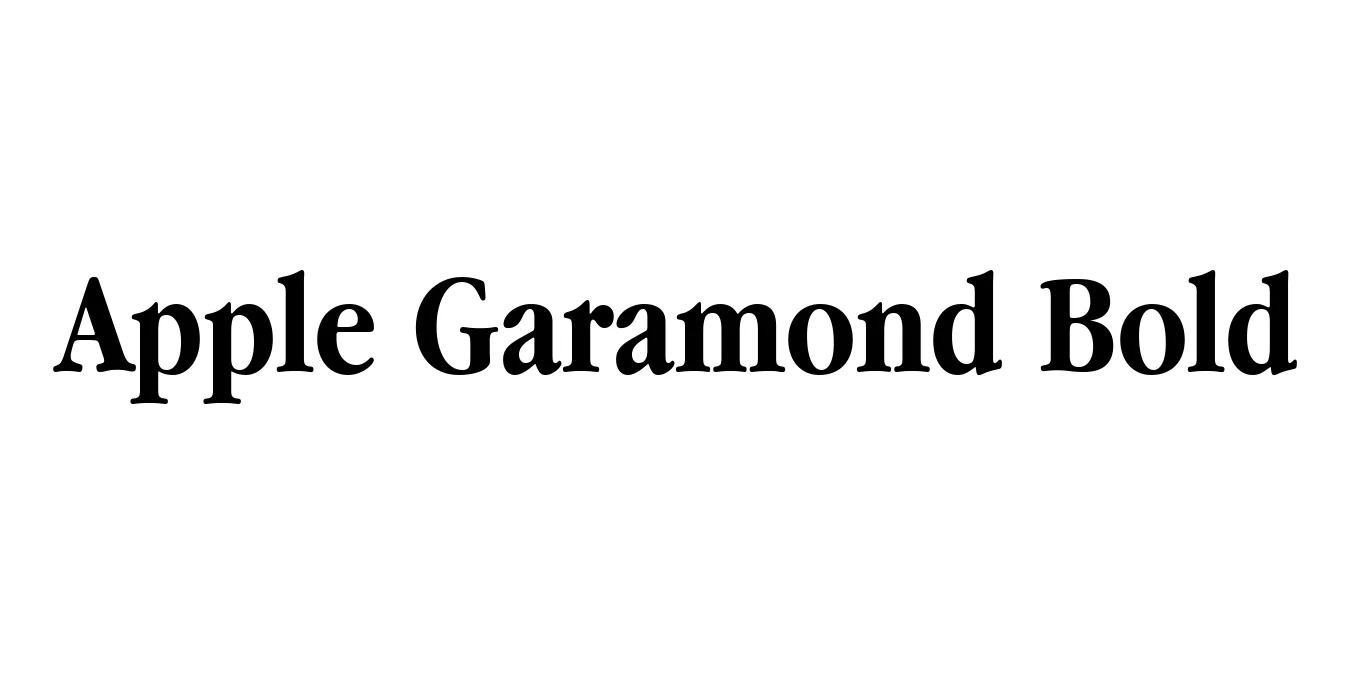
Apple Garamond Bold
Designed by ITC (International Typeface Corporation)
Apple Garamond Bold is a condensed variation of ITC Garamond that served as the primary corporate typeface for Apple Inc. from 1984 until 2002. This specific cut was commissioned to provide a more space-efficient version of the classic Garamond style, allowing Apple to maintain a sophisticated and humanistic brand image across diverse marketing materials. It is most famously associated with the Macintosh launch and the iconic 'Think Different' advertising campaign.
Characterized by its exceptionally high x-height and elegant, sharp serifs, the Bold weight provides a strong visual hierarchy while retaining the classic proportions of the Garamond family. While Apple eventually shifted its branding to Myriad and later San Francisco, Apple Garamond Bold remains a hallmark of classic desktop publishing and late 20th-century technology aesthetics, favored today for its nostalgic yet timeless appeal.
Apple Garamond Bold Best Uses
Used for creating a sophisticated and nostalgic corporate identity.
Ideal for high-impact headings in print magazines and classic book layouts.
Great for vintage-style advertisements that require a sense of authority and history.